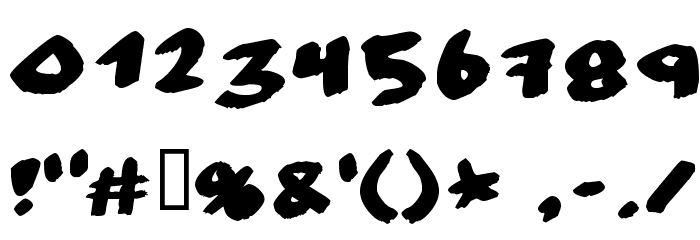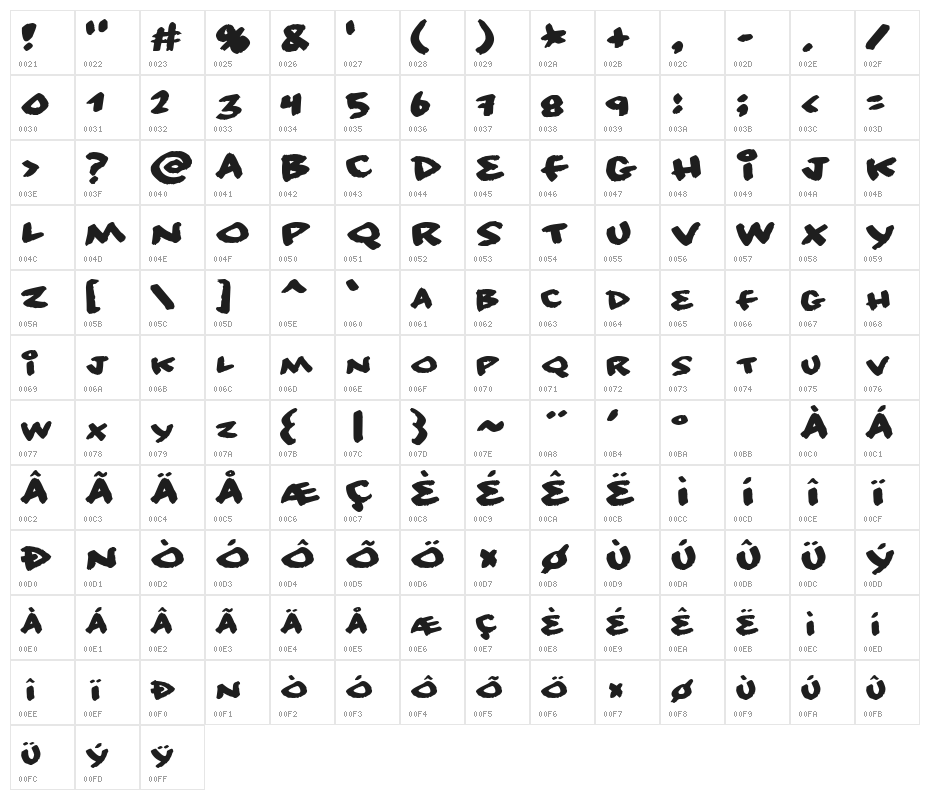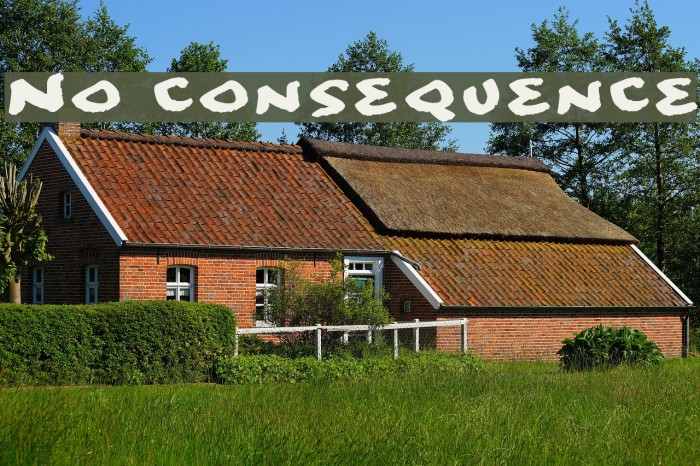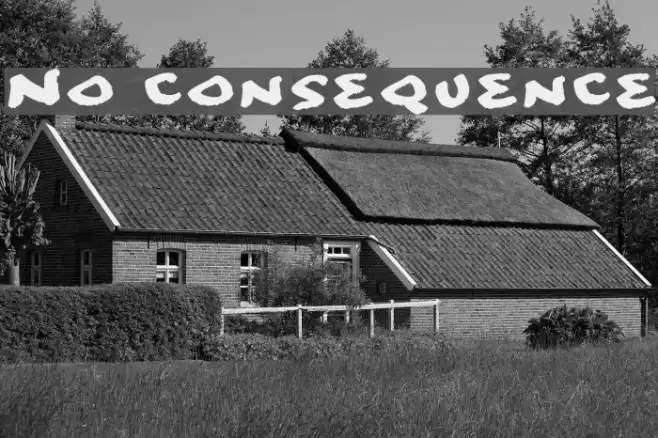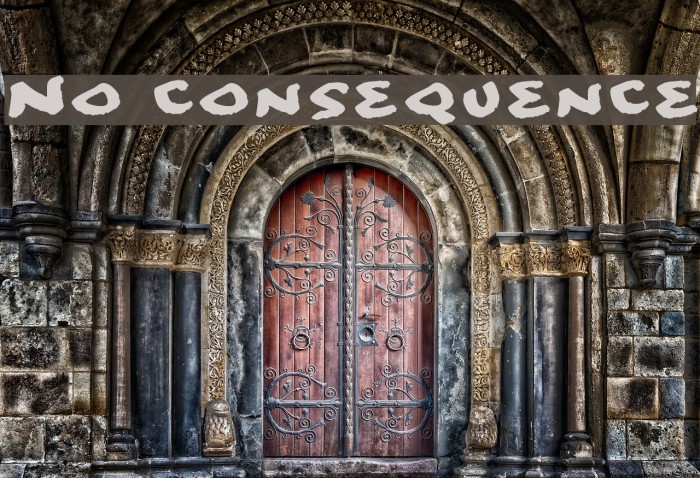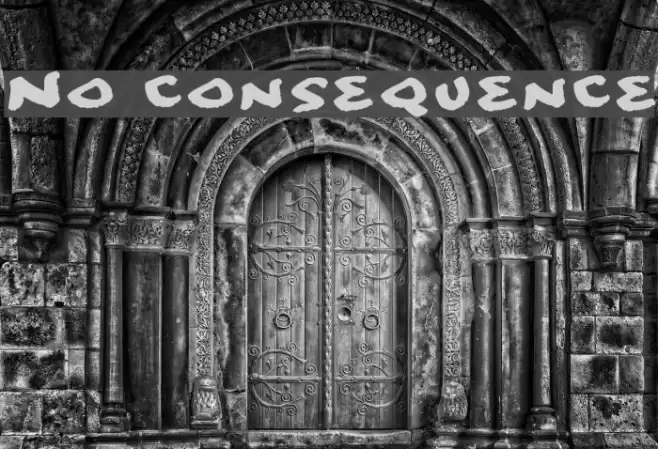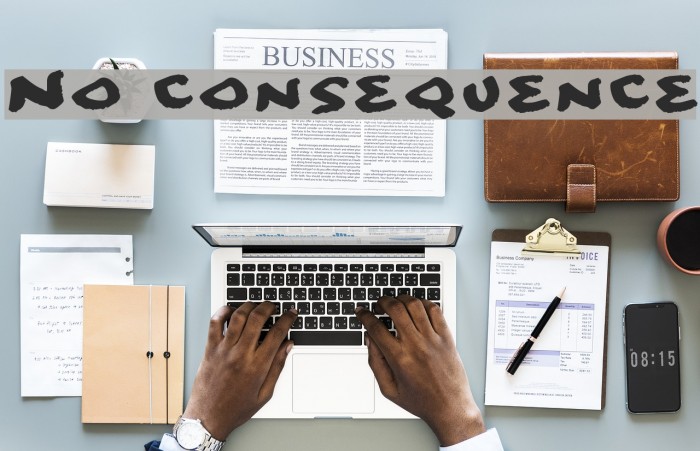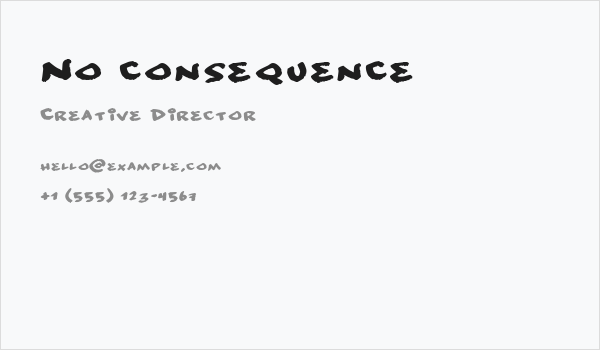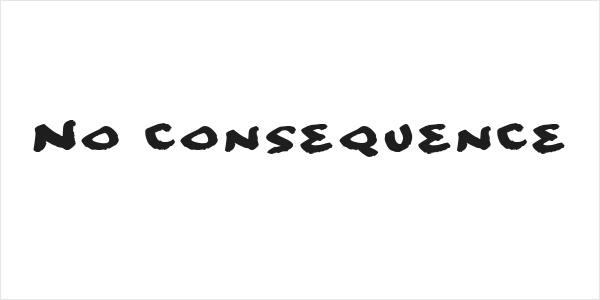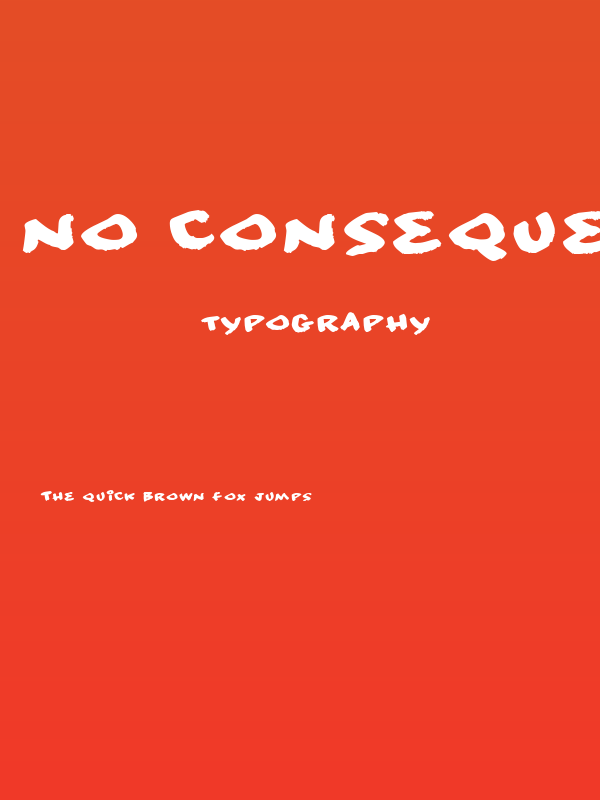
No consequence Font
No consequence Description
This font features a bold, expressive style with a hand-painted appearance. The characters are thick and have a dynamic, energetic flow, reminiscent of brush strokes. The uppercase and lowercase letters maintain a consistent weight, contributing to a cohesive look. The numerals and special characters share the same artistic flair, making the font suitable for creative and informal applications. The overall design is playful yet impactful, with a strong visual presence that commands attention.
| Proposed Projects | Ideal for posters, branding, packaging, and any project requiring a bold, artistic touch. |